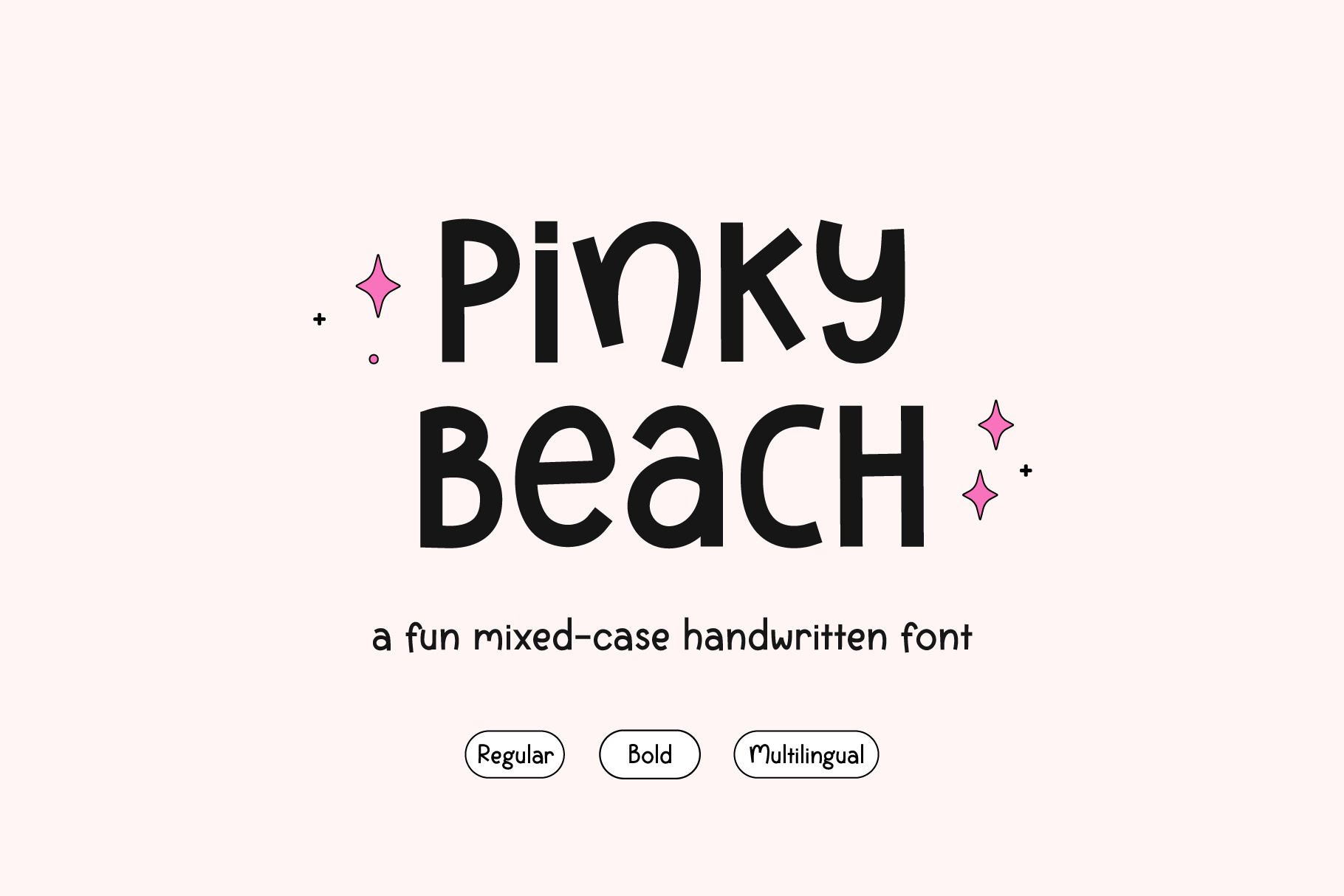
Pinky Beach - A Fun Handwritten Font
Say hello to Pinky Beach, a cute handwriting font that brings warmth and personality to your designs. It is great for craft projects, invitations, greeting cards, logos, branding, social media, printed goods or anything that requires cute handwritten lettering.
This versatile font comes in two weights—regular, and bold— and it has international characters.
FONT FEATURES
• Cute handwriting style
• Standard characters (lowercase, uppercase, numbers, punctuation)
• Supported Languages: Danish, English, Filipino, Finnish, French, Friulian, Galician, German, Irish, Italian, Low German, Luxembourgish, Norwegian Bokmål, Norwegian Nynorsk, Spanish, Swedish, Swiss German, Turkish